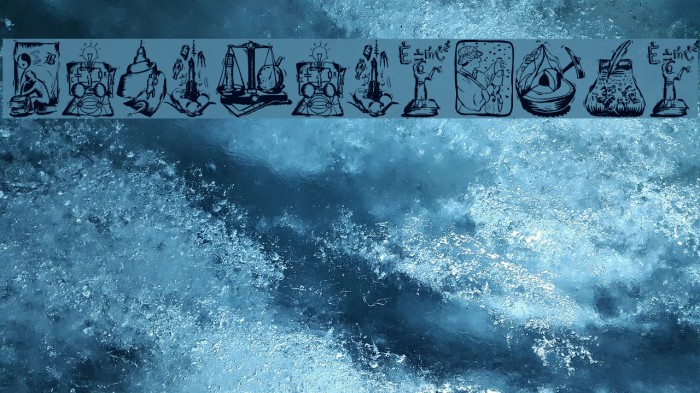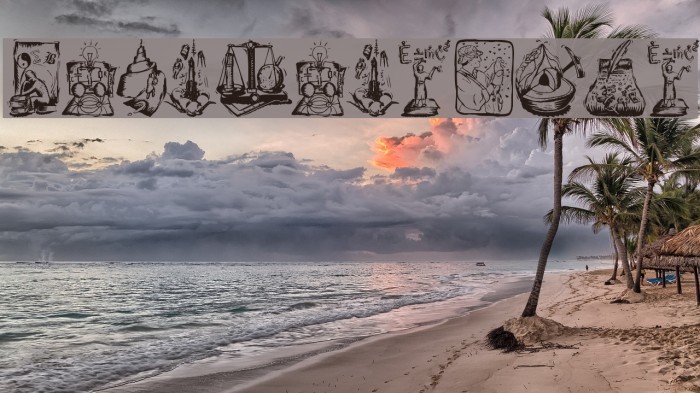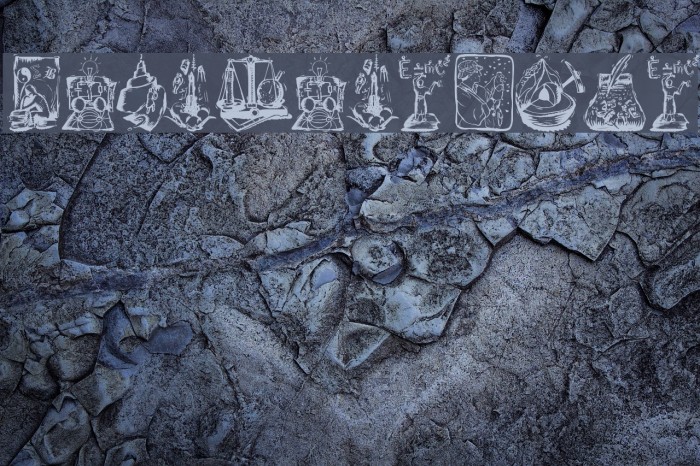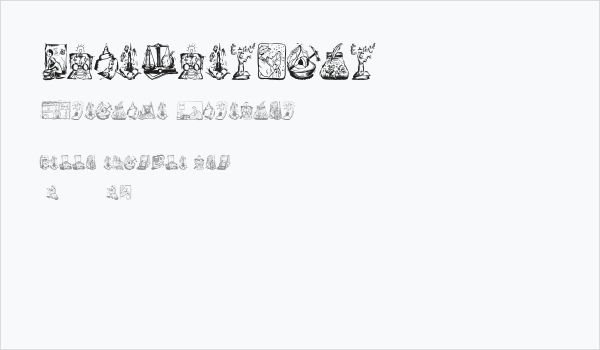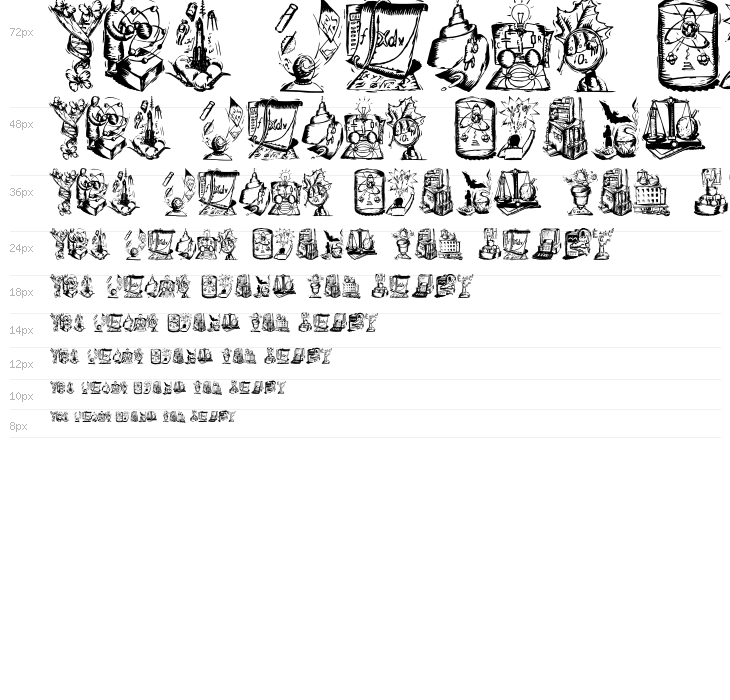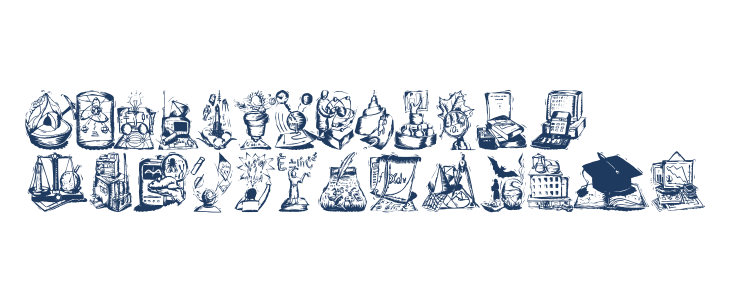
SciencesBats Font
SciencesBats Description
A highly detailed, hand-drawn decorative font where each character is represented by a unique scientific or academic illustration, featuring intricate linework and sketch-like qualities. The glyphs are pictorial rather than traditional letterforms, making the set visually rich and thematic.
| Overall Style | Decorative, Sketch, Thematic |
| Use Case | Logos, Headlines, Posters, Themed graphics |
| Proposed Projects | Educational posters, science fair materials, themed invitations, children's science books, museum signage. |